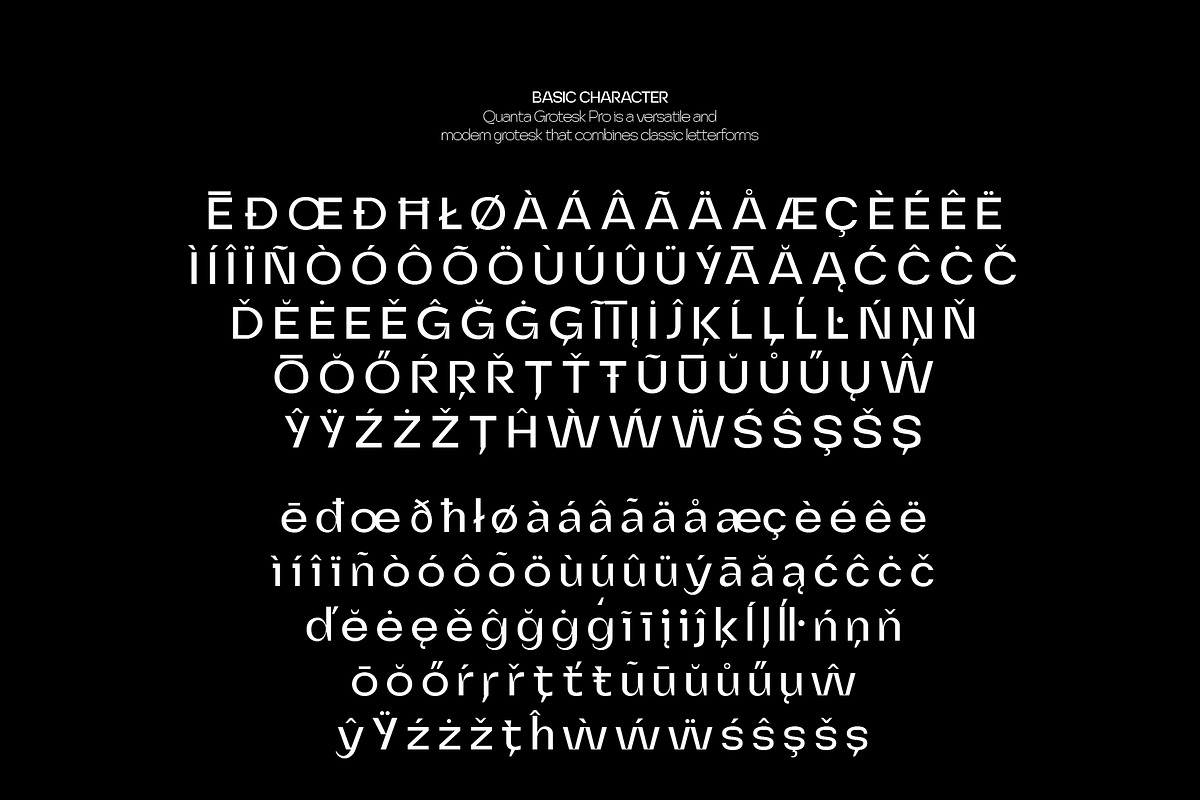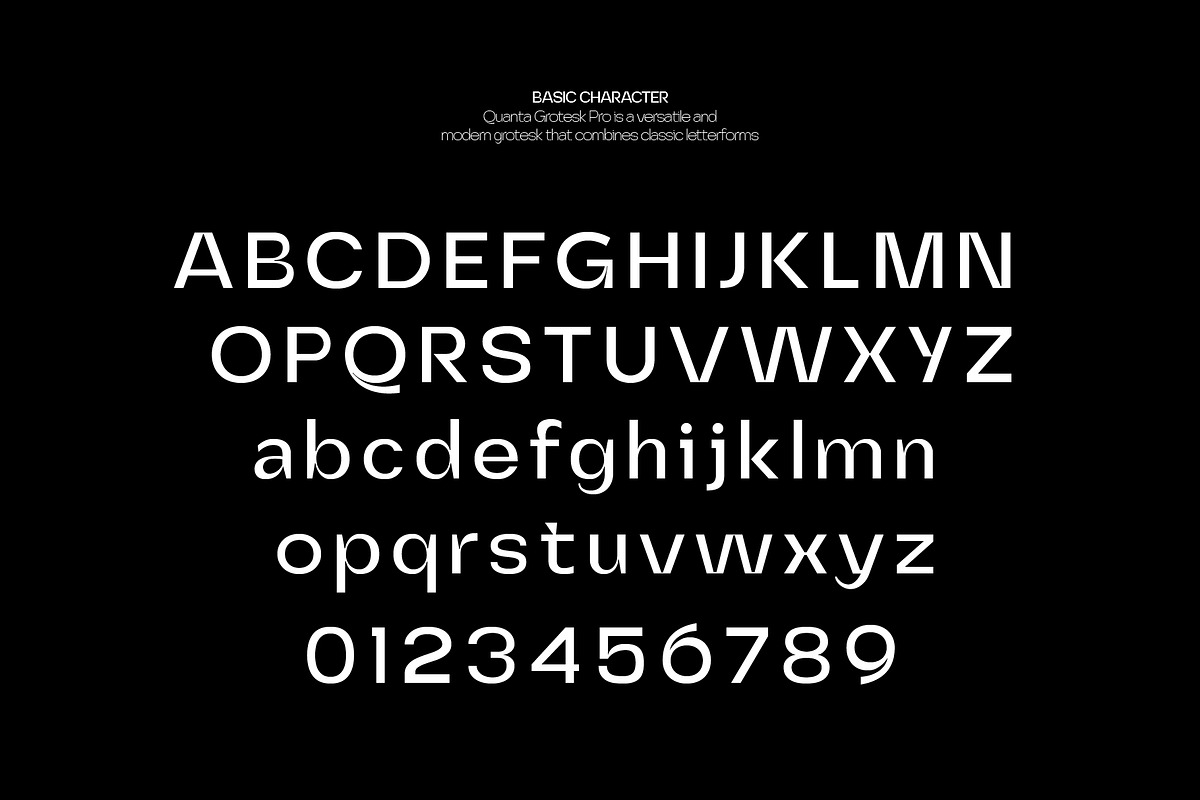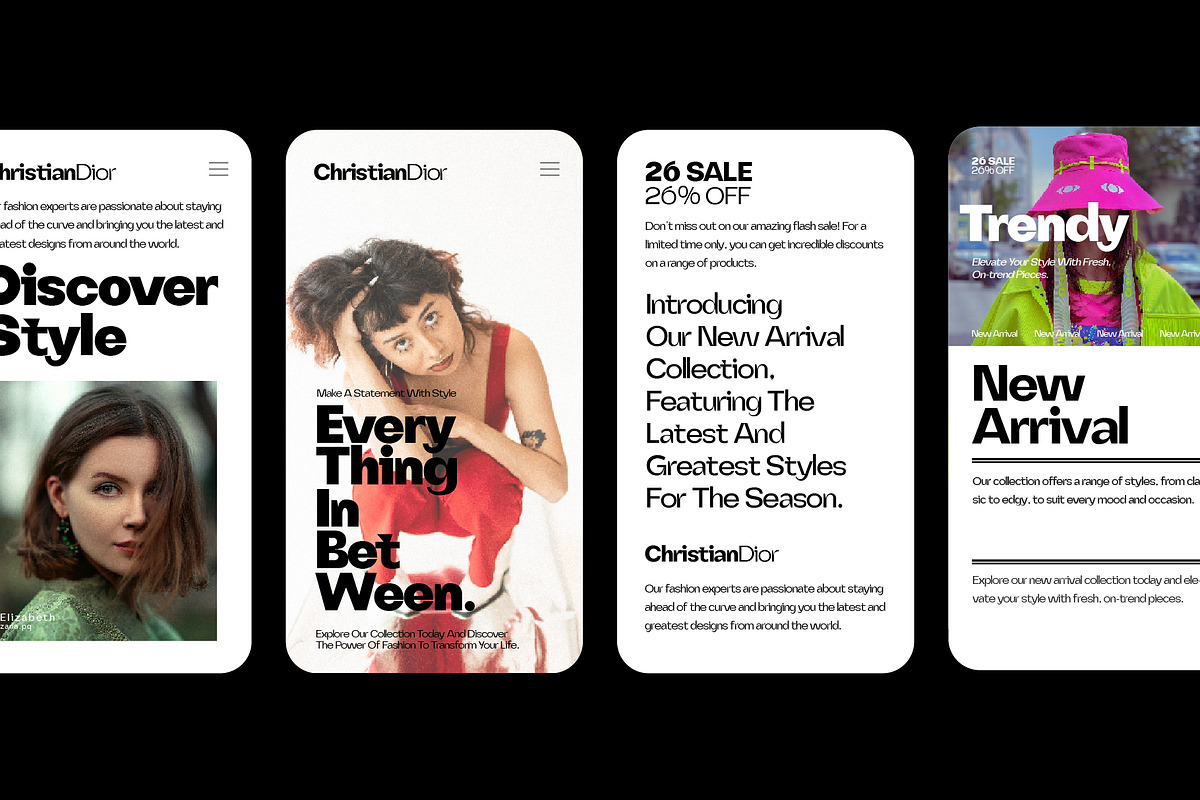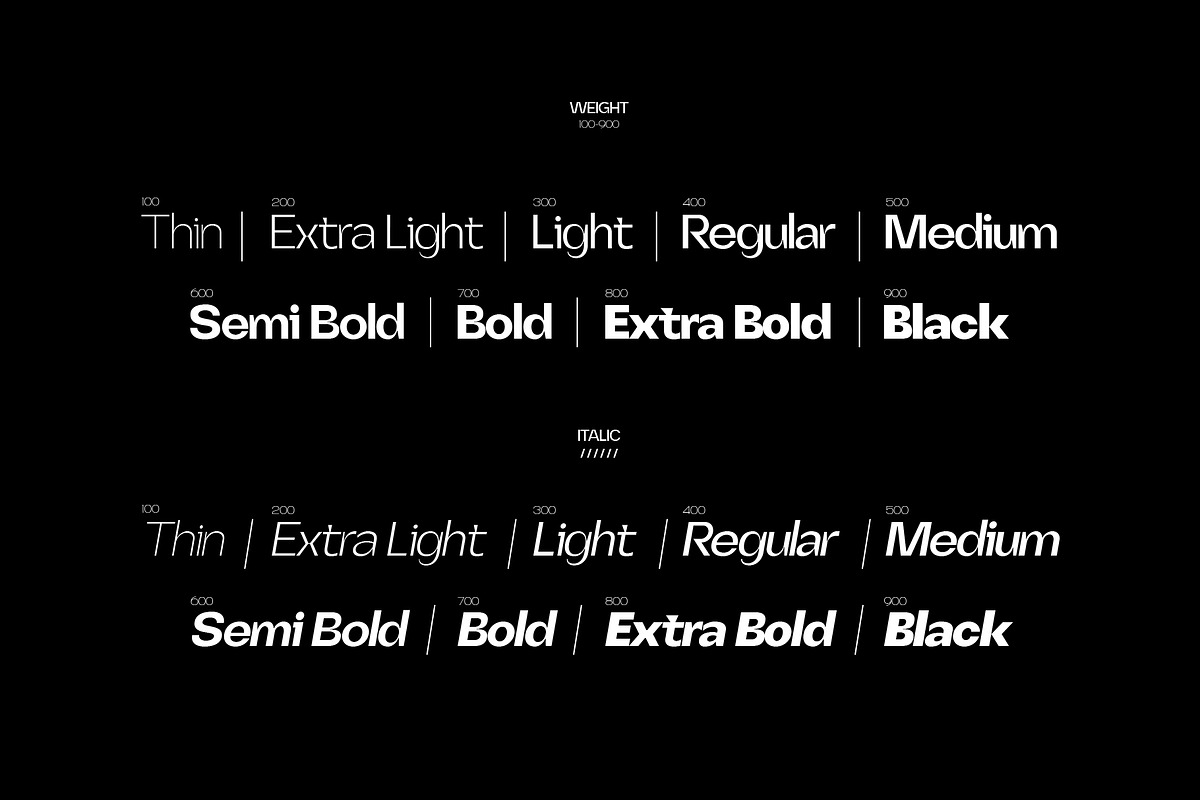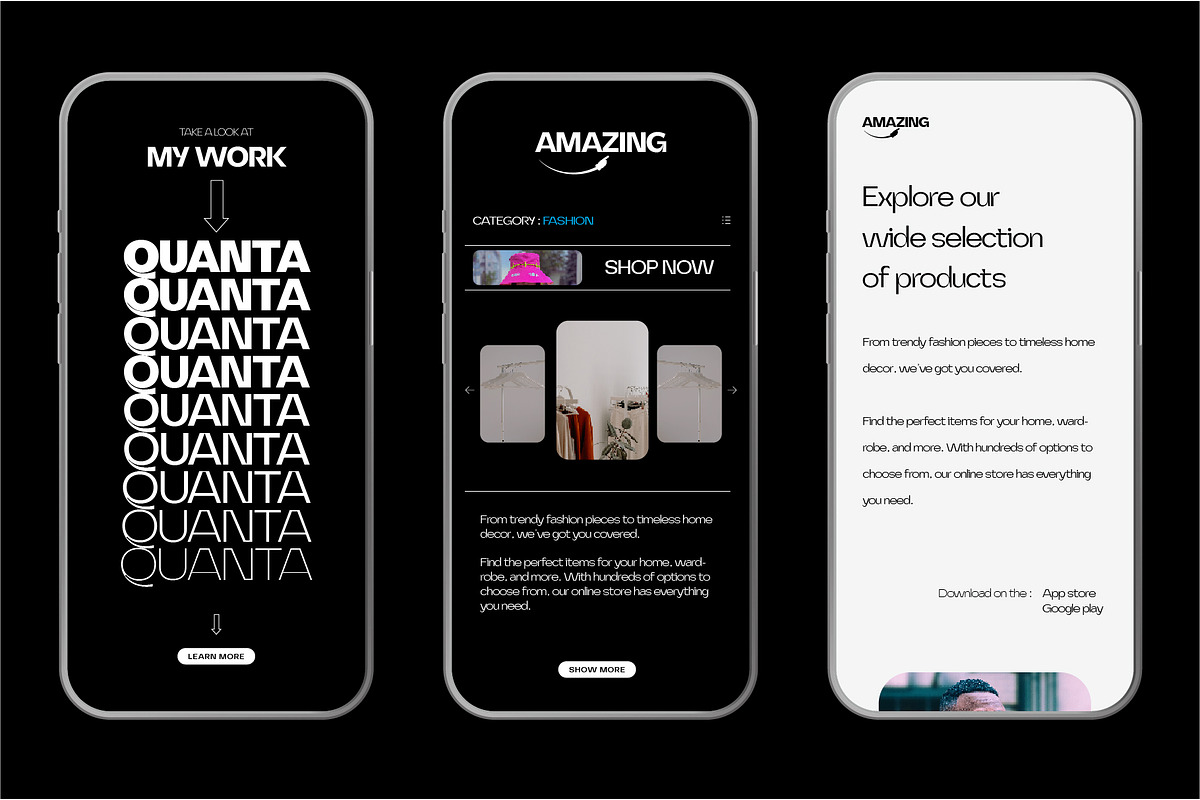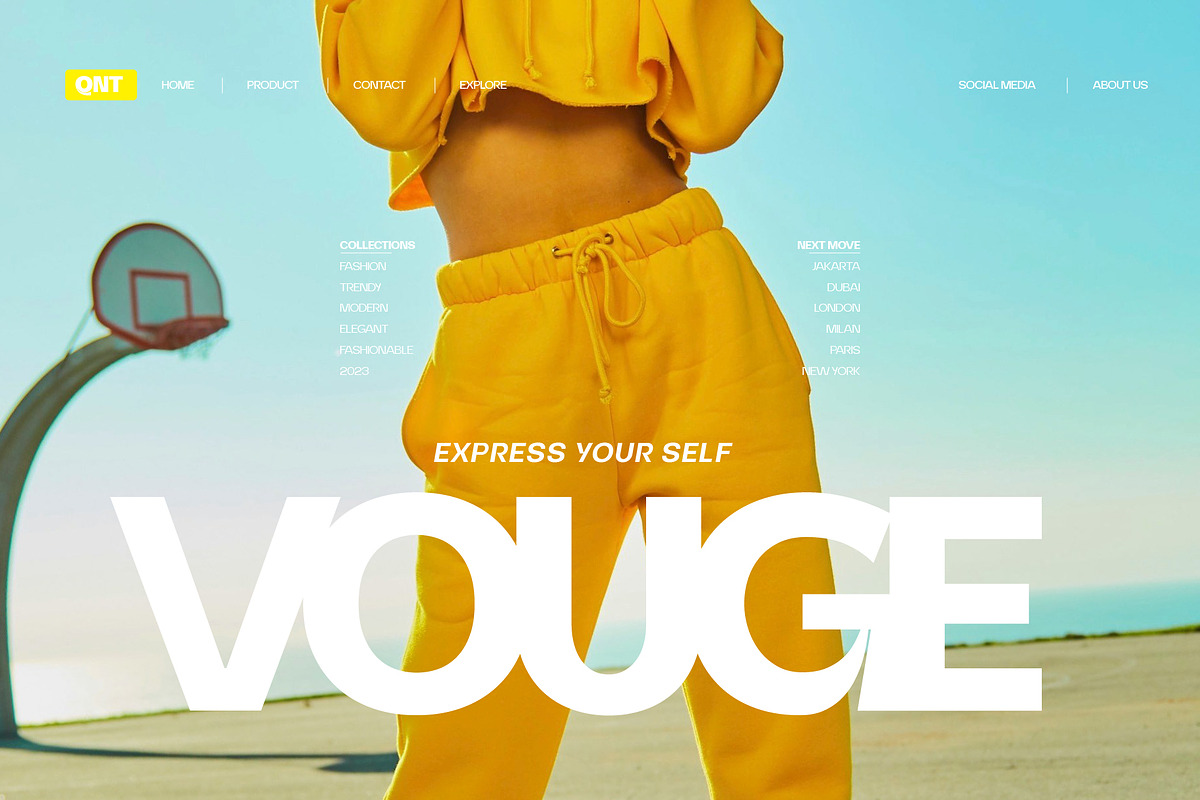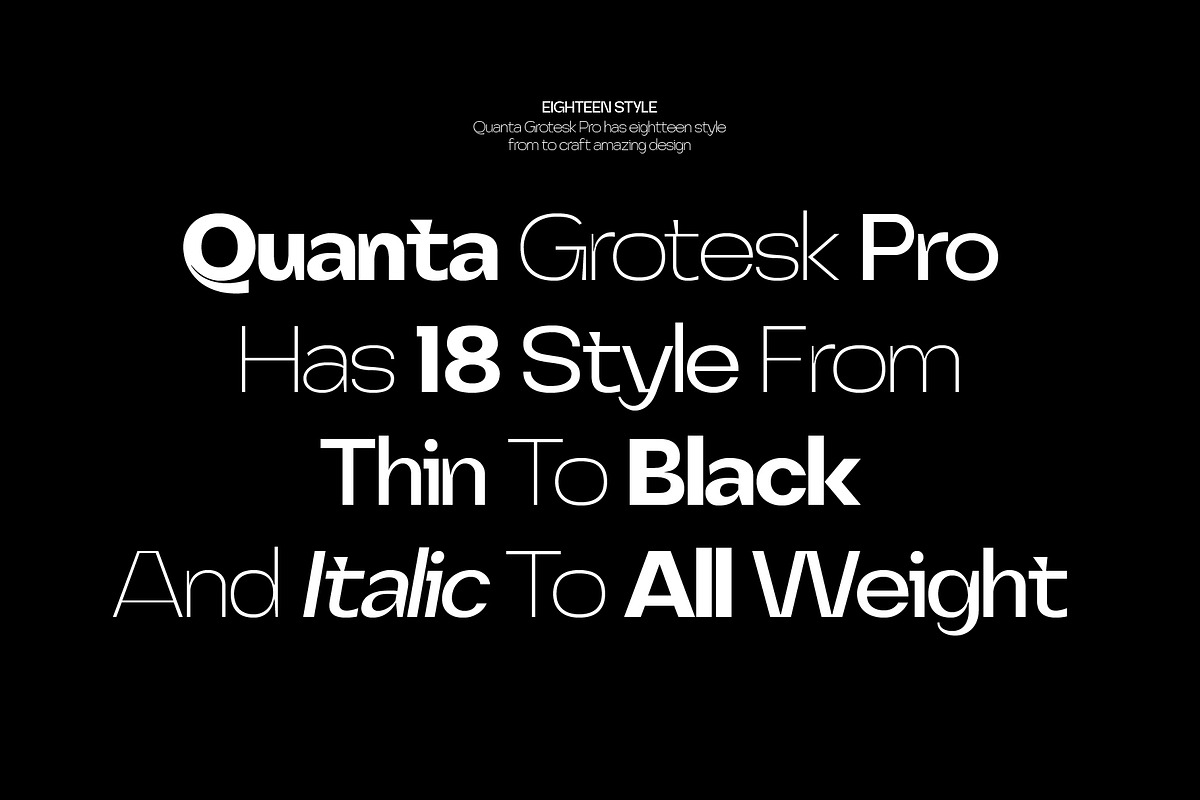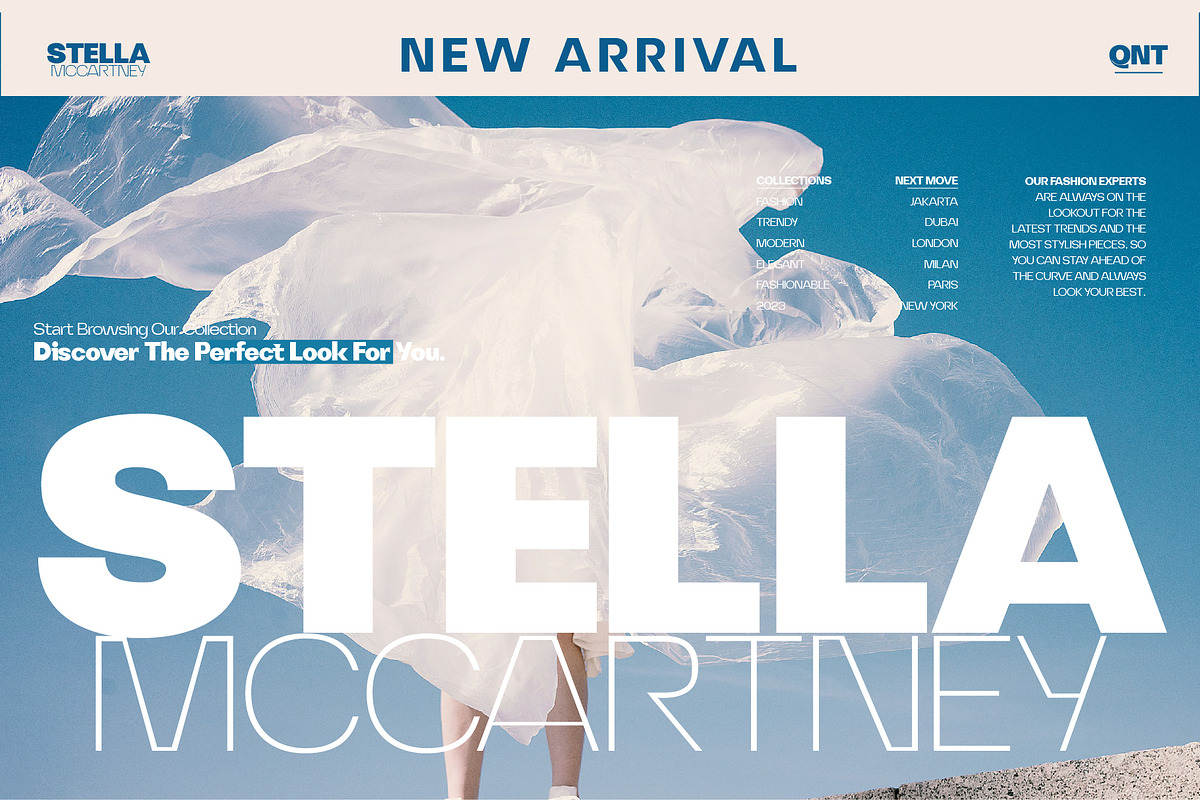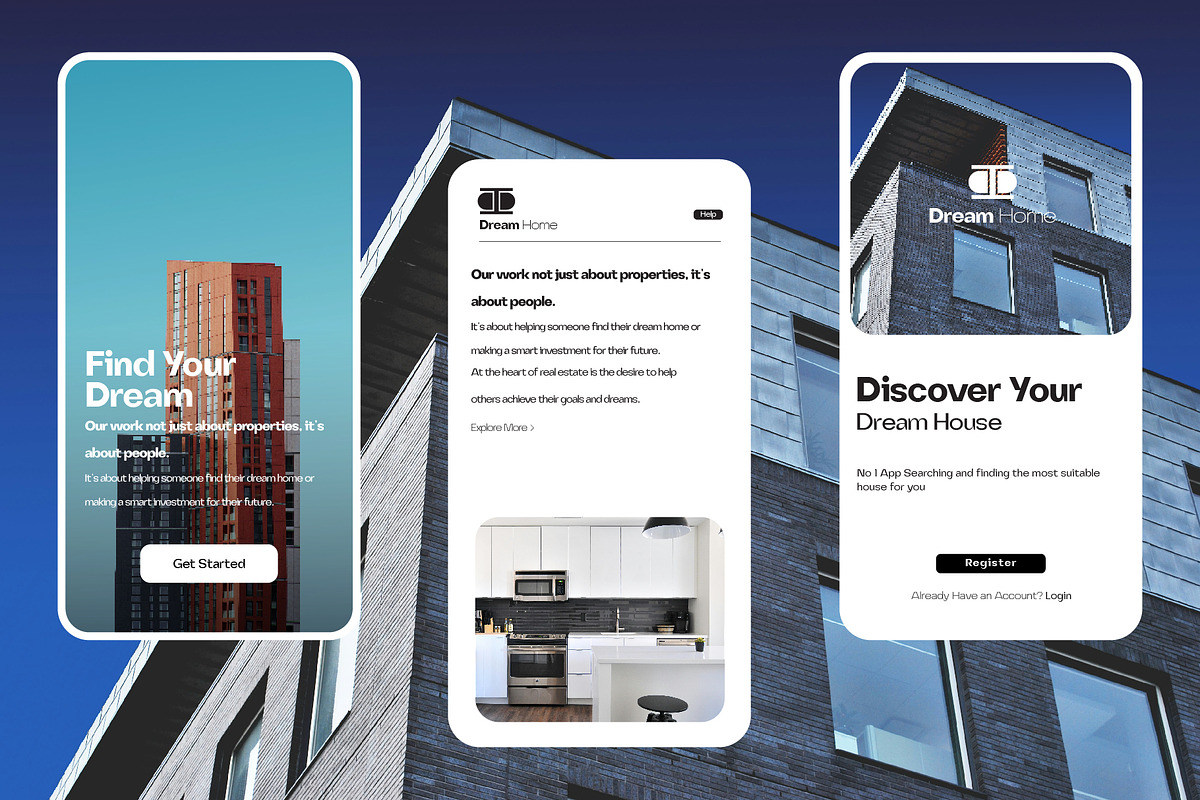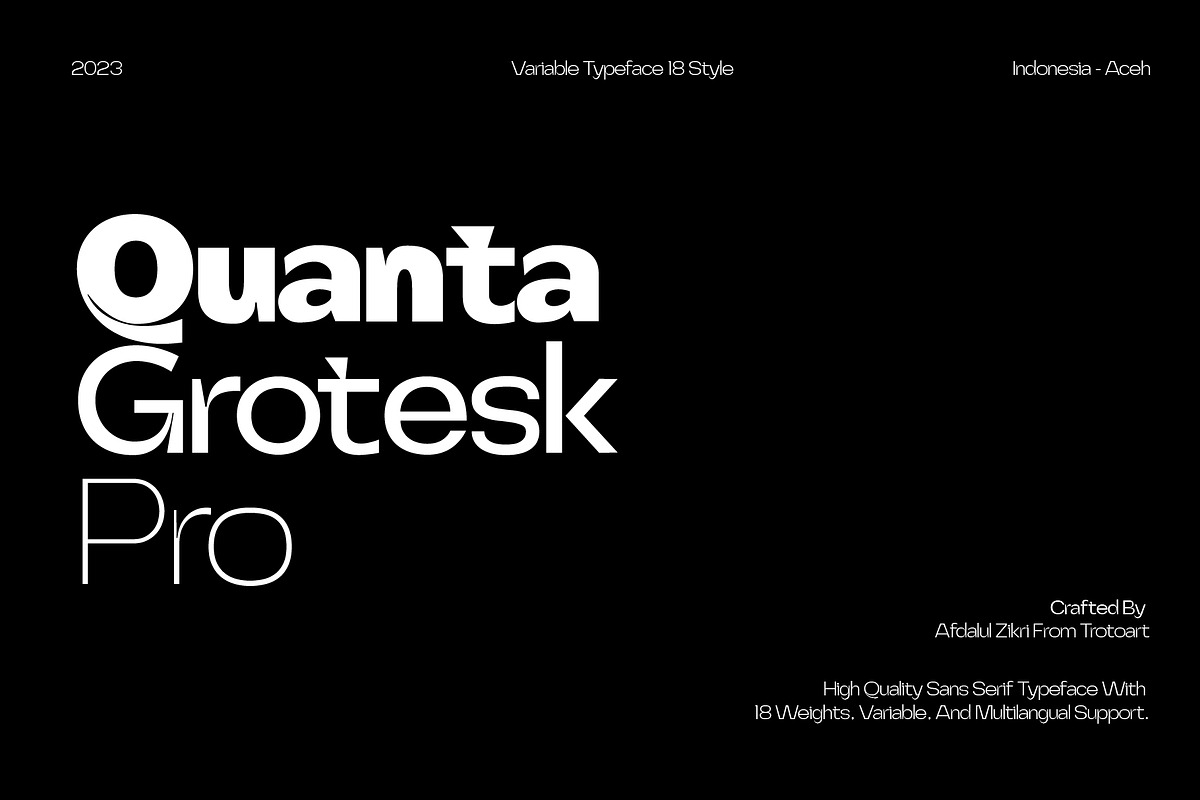
Quanta Grotesk Pro
Quanta Groteks Pro is a modern and versatile variable font designed to meet the needs of contemporary typography.
With its sleek and elegant design, this font is neutral design and subtle character suit diverse projects, from branding and advertising to editorial and Product design. Quanta Groteks Pro is available for both commercial and personal projects, and you can download it for free or pay what you want to support my work.
The font family comes with nine different weights, ranging from the thin regular to the Black. Each weight has its unique character, making it easy to find the perfect style for any project.
One of the most impressive features of Quanta Groteks Pro is its flexibility as a variable font. The font's variable axis allows for continuous variation in weight, width, and slant, giving users unparalleled control over the design and look of their typography.
The font has a large x-height, which ensures excellent legibility, even at small sizes. The letterforms are clean, with sharp edges and smooth curves, giving them a modern and minimalist feel.
The font supports multiple languages, making it an excellent choice for international projects.
In terms of usage, Quanta Groteks Pro is ideal for headlines, titles, and branding. Its bold and distinctive appearance makes it perfect for attention-grabbing headlines, while its flexibility and range of weights allow for subtle variations in typography that can help establish a consistent brand identity.
Overall, Quanta Groteks Pro is a stunning and versatile font family that offers exceptional design possibilities. Whether you're a graphic designer, web developer, or typographer, this font is a must-have for your toolkit.